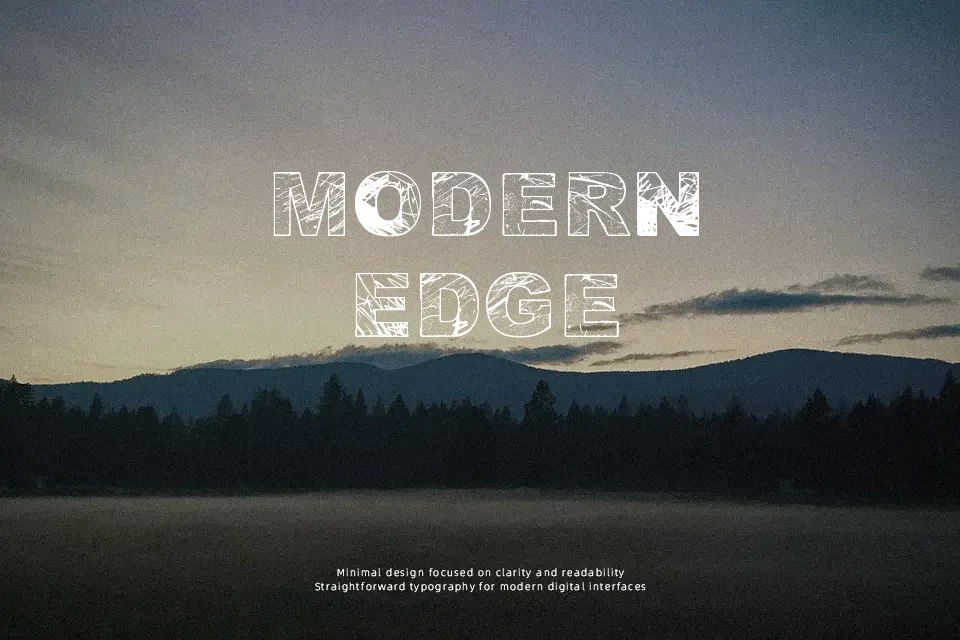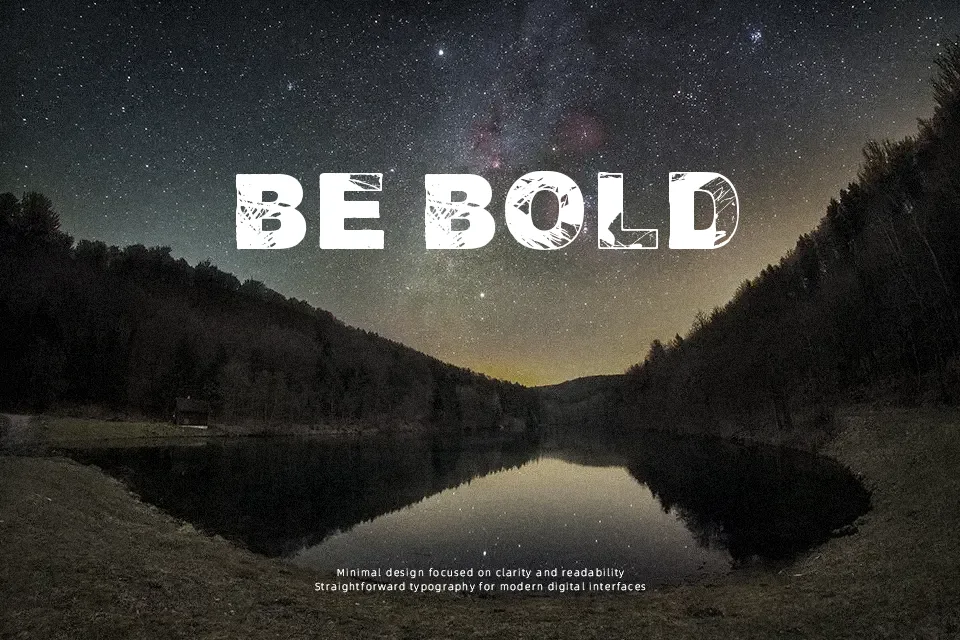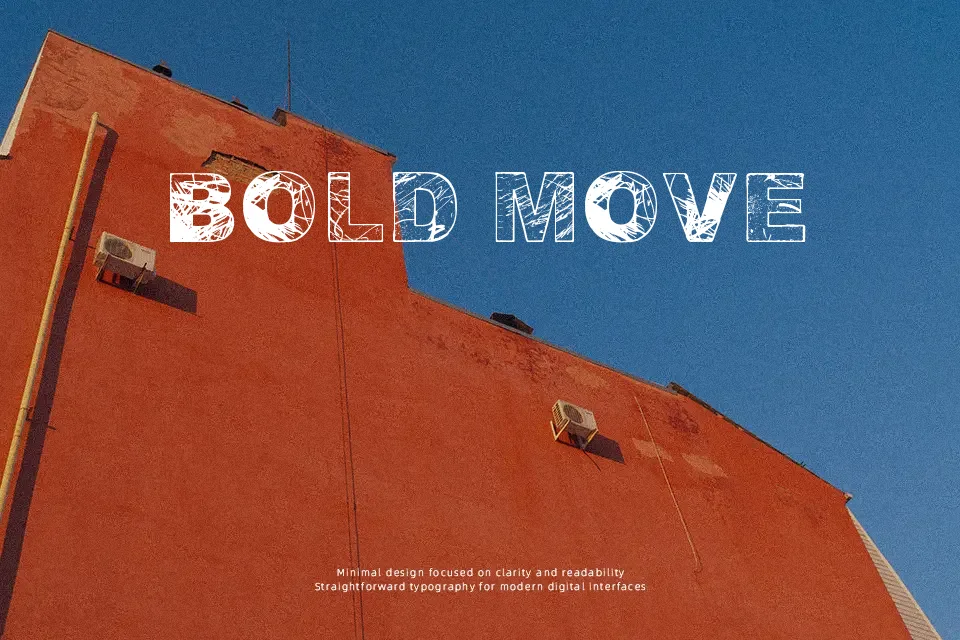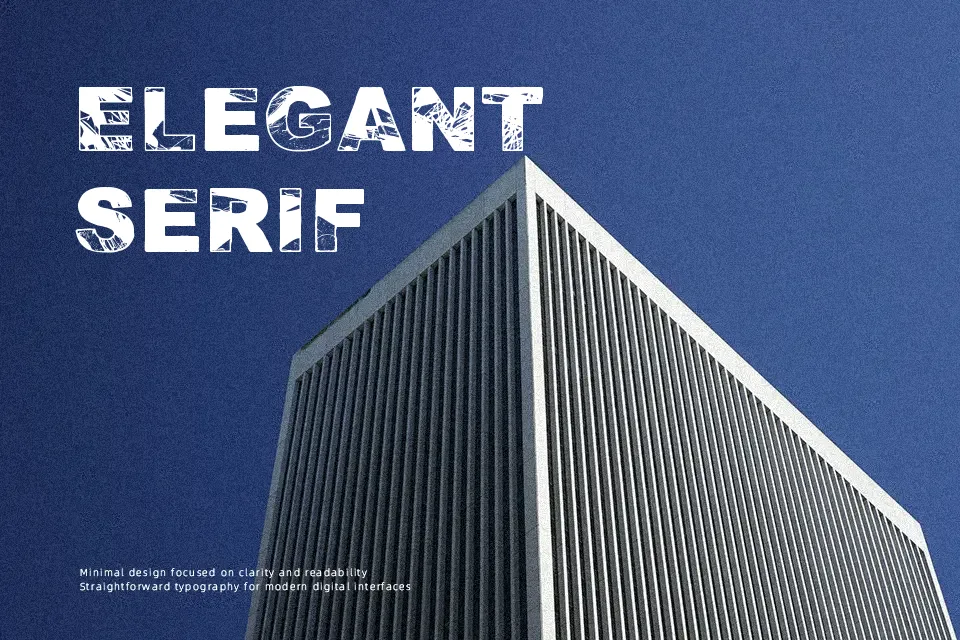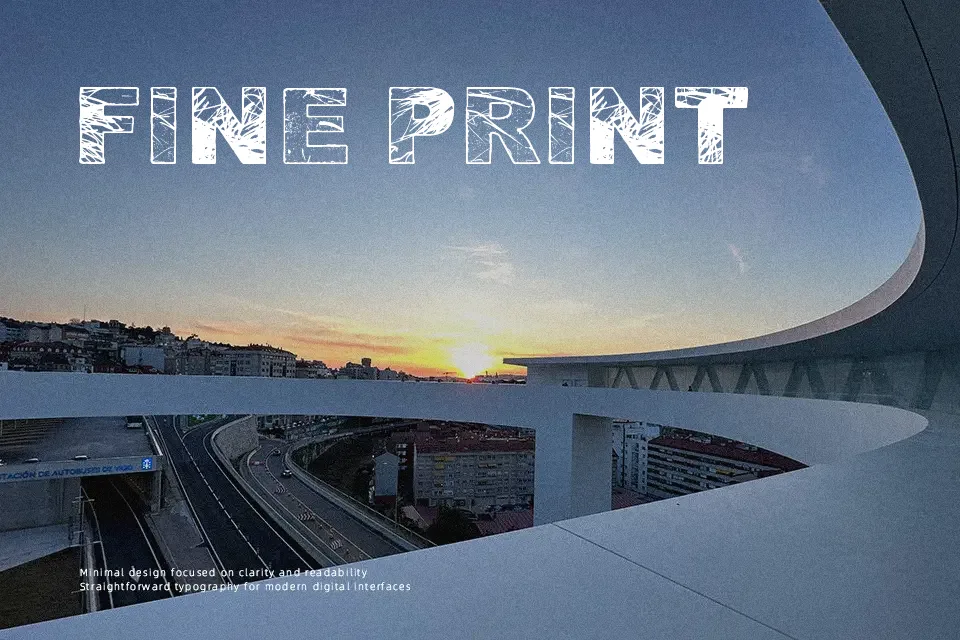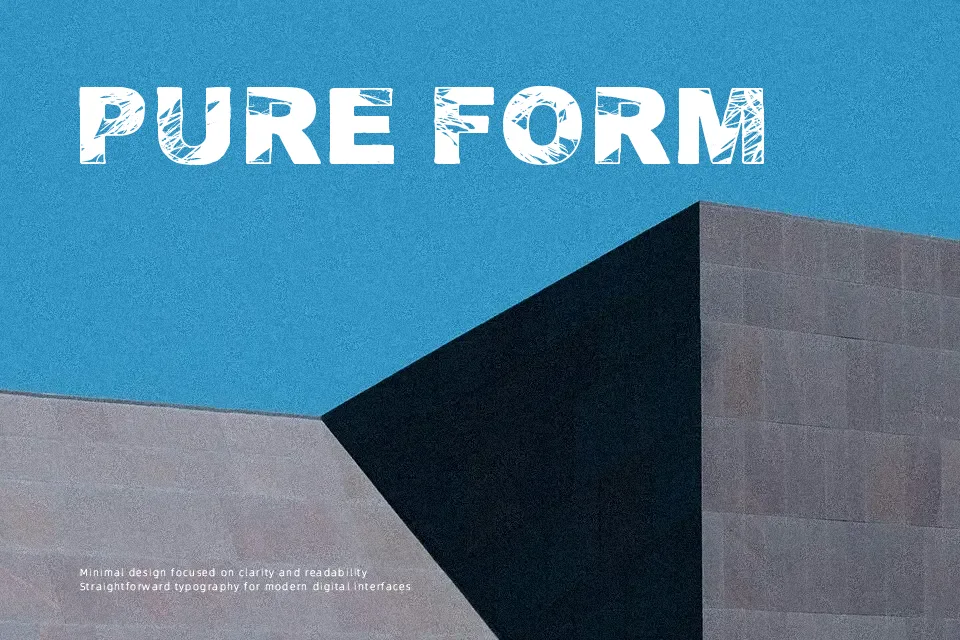
Adieresis, Odieresis & Aring Font
There’s something deliberately unpolished about this font that makes it hard to ignore. The strokes carry a bold, semi-expanded weight with irregular character construction, giving each letterform an expressive, almost hand-stamped quality. Classified in the Fancy > Decorative category, it leans toward raw visual impact rather than refined elegance. It suits headline use in posters, music project visuals, or alternative editorial layouts where personality outweighs polish. The glyph count of 158 covers basic Latin characters, but the coverage is limited — so multilingual projects requiring extended character sets will hit a wall quickly. It also struggles in small sizes; the detail work that makes it interesting at display scale becomes muddied below 18pt. This is a font that works when the design calls for rough charm, not when clarity or legibility under reading conditions is the priority.
Best For:- Poster and gig flyer headlines
– Music album or band identity visuals
– Alternative zine or editorial headers
– Experimental logo treatments
Not Ideal For:- Body text or long-form reading
– Corporate or professional documents
– Multilingual layouts requiring extended character sets
– Small-size UI labels or captions
Perfect for editorial, headline, and logo, with a artistic and decorative style.